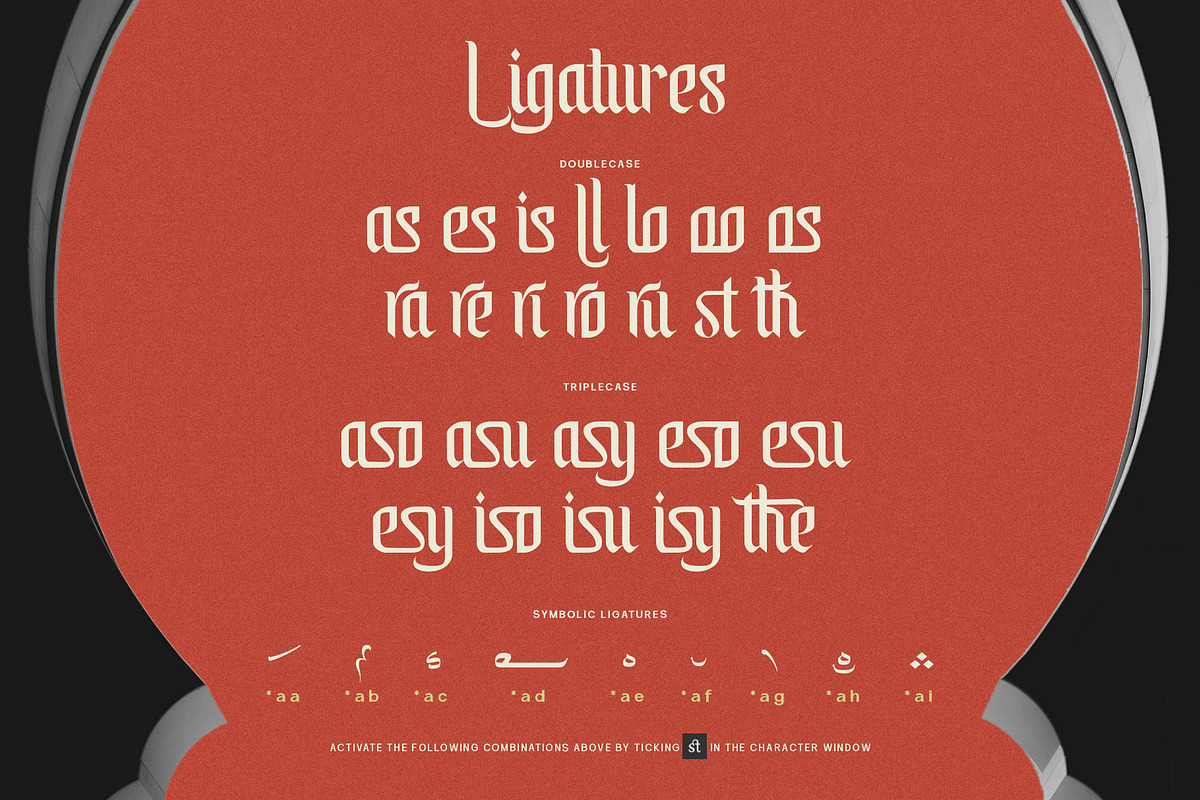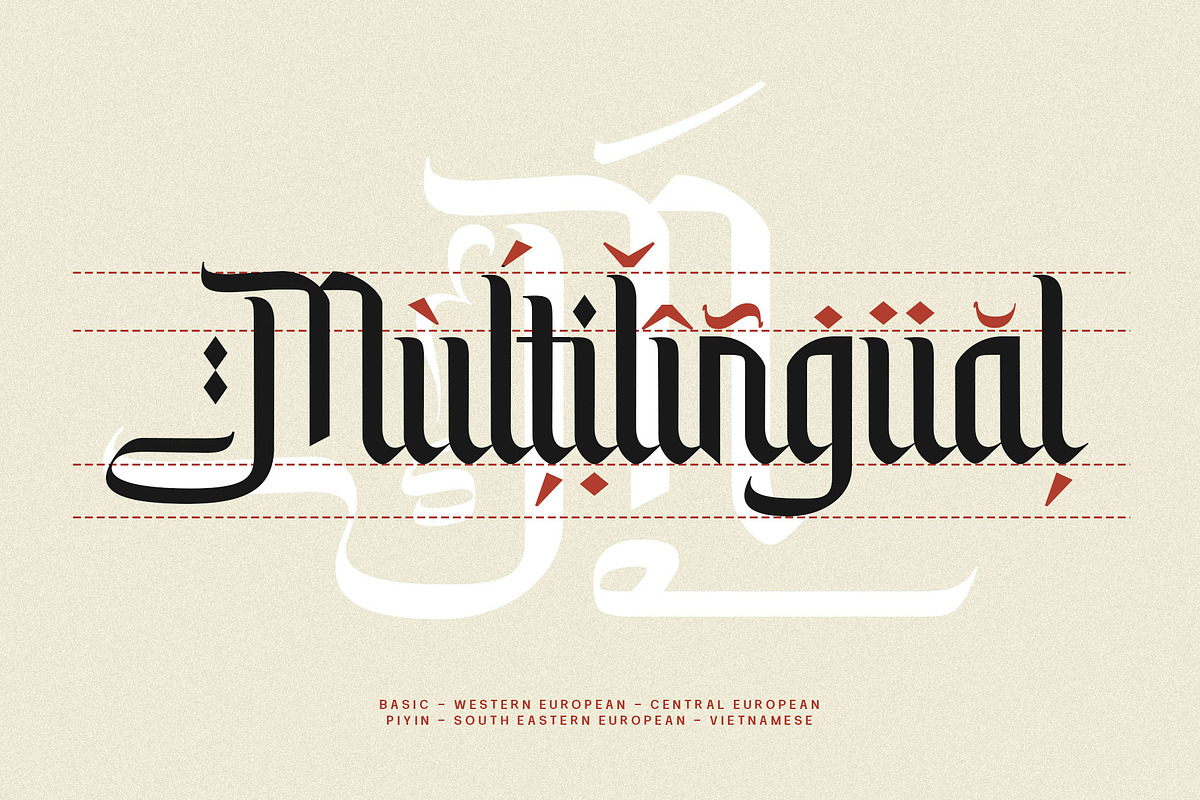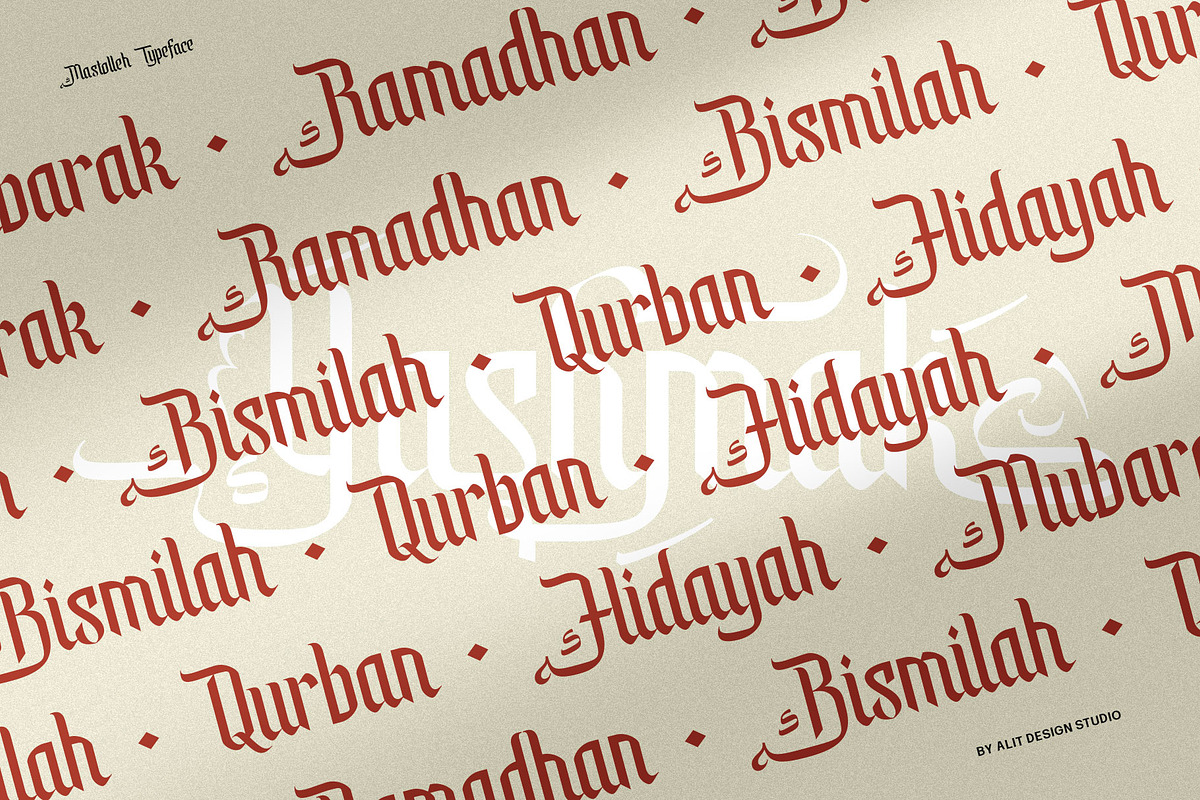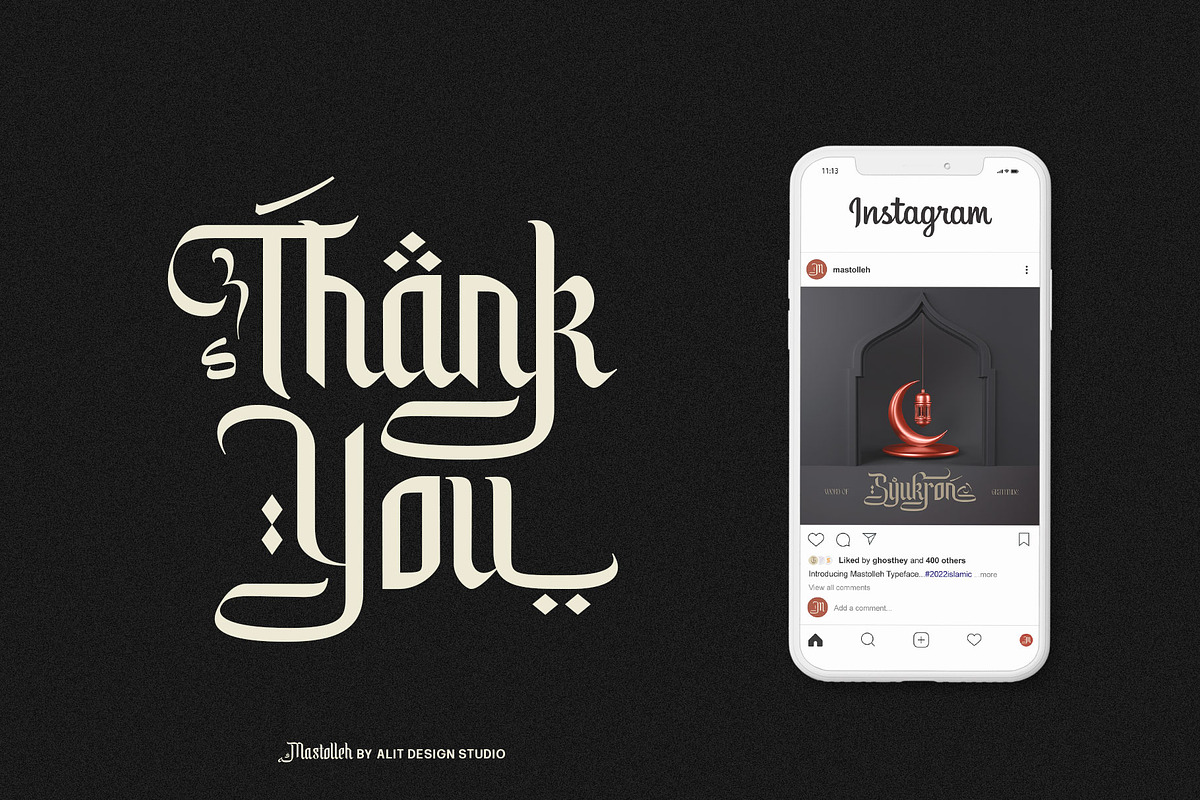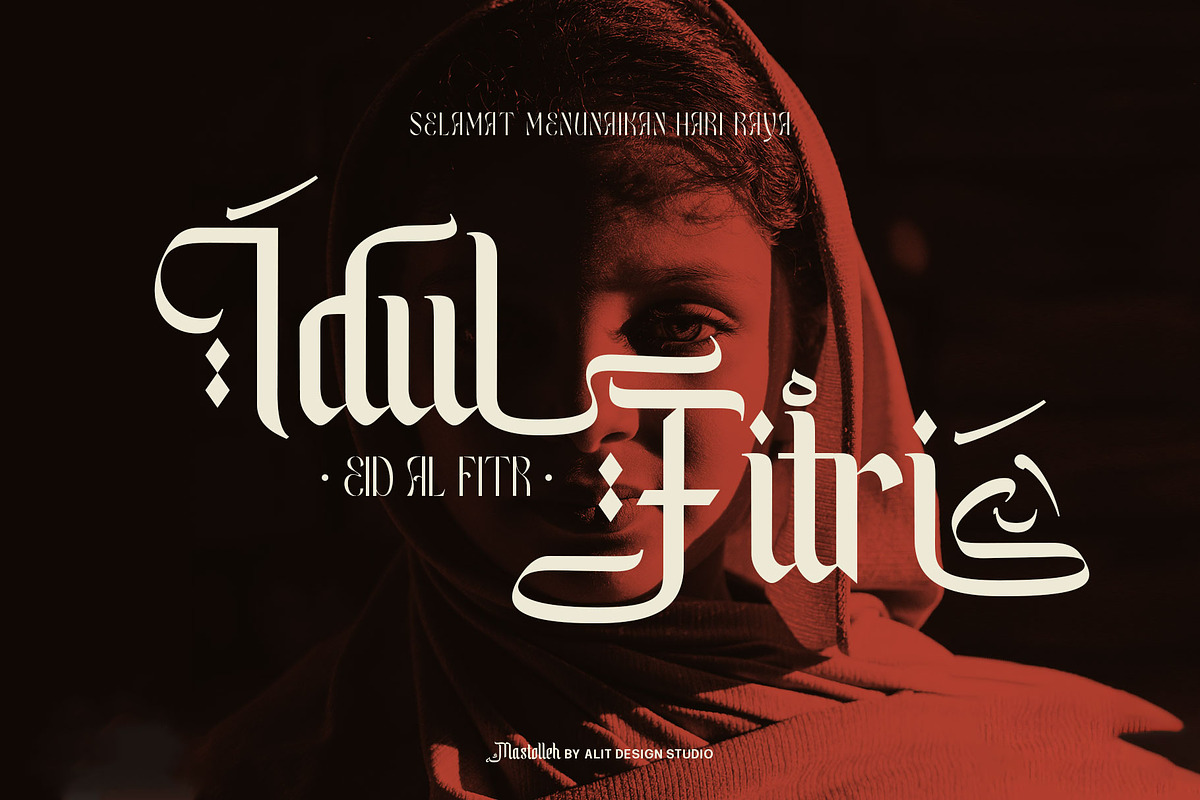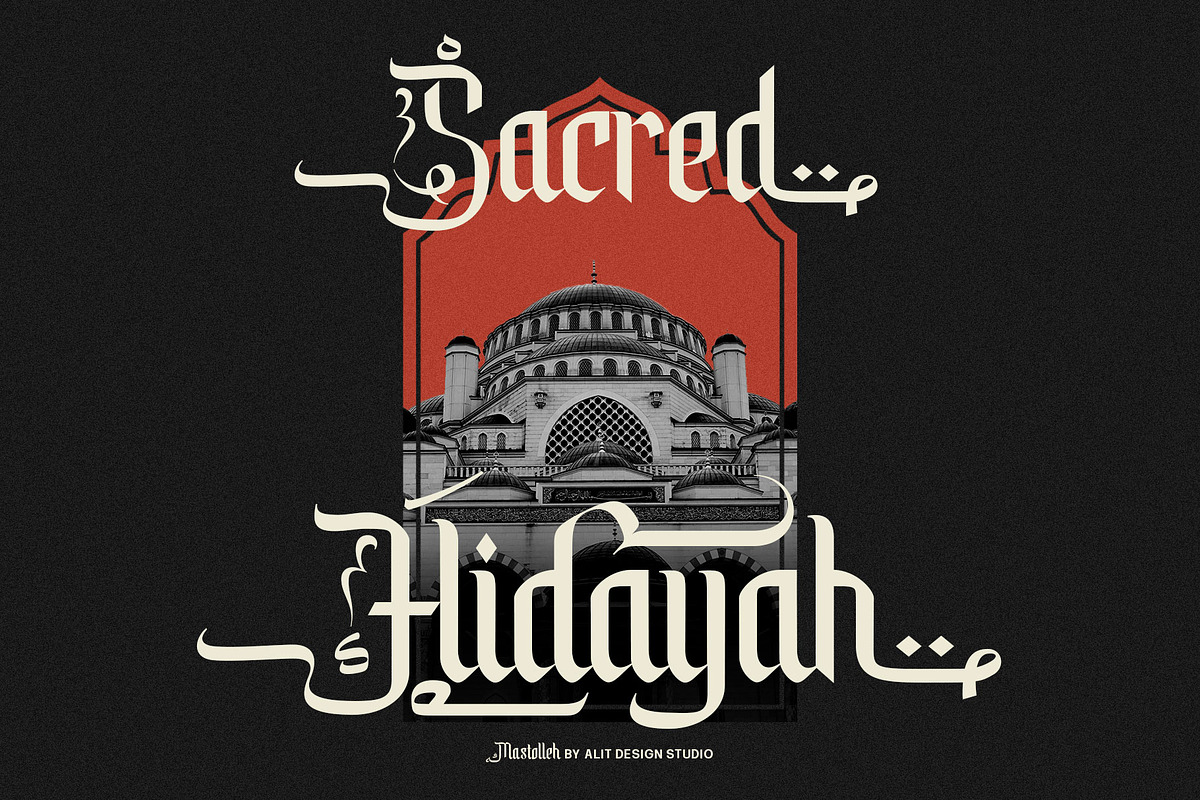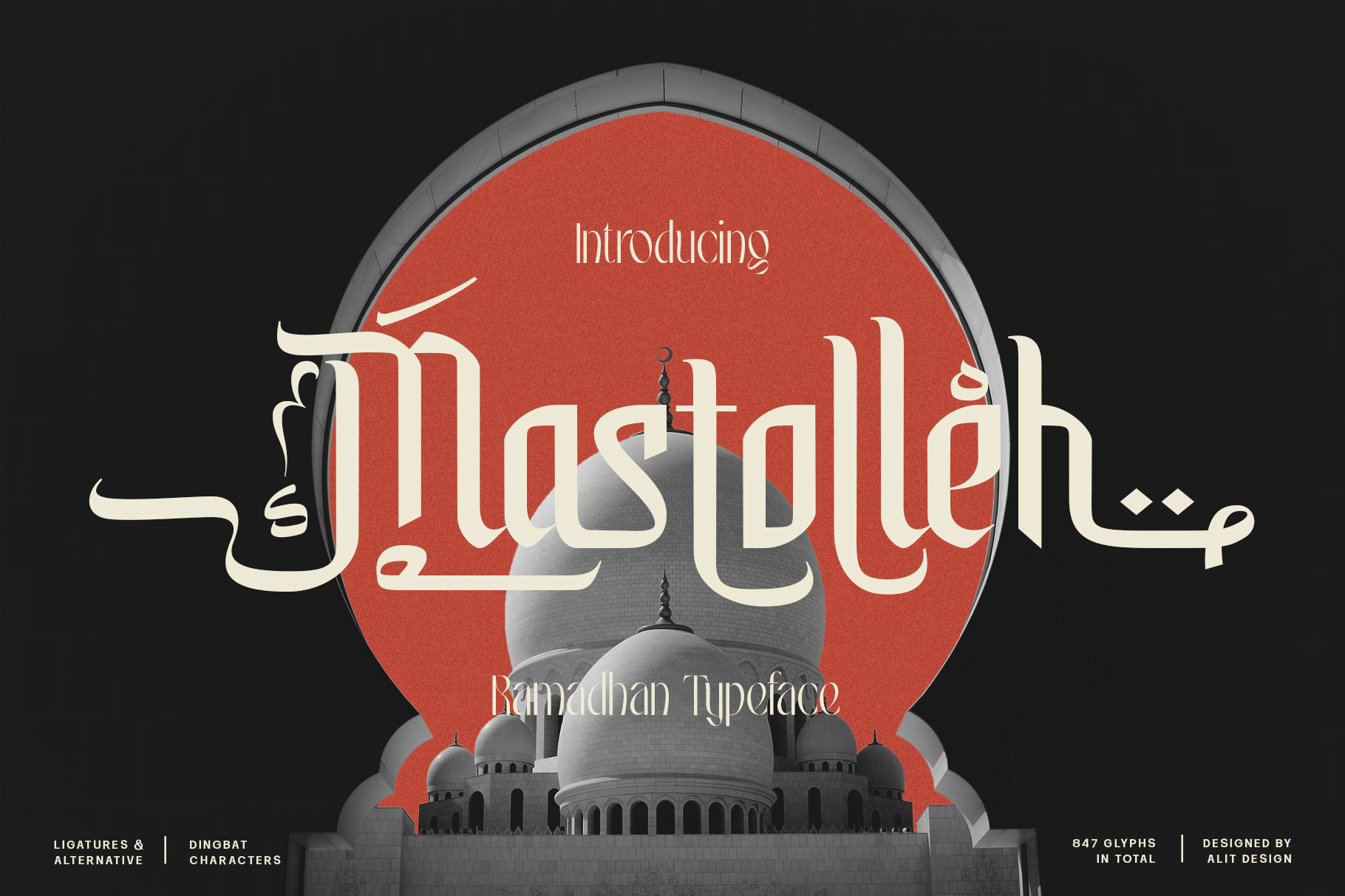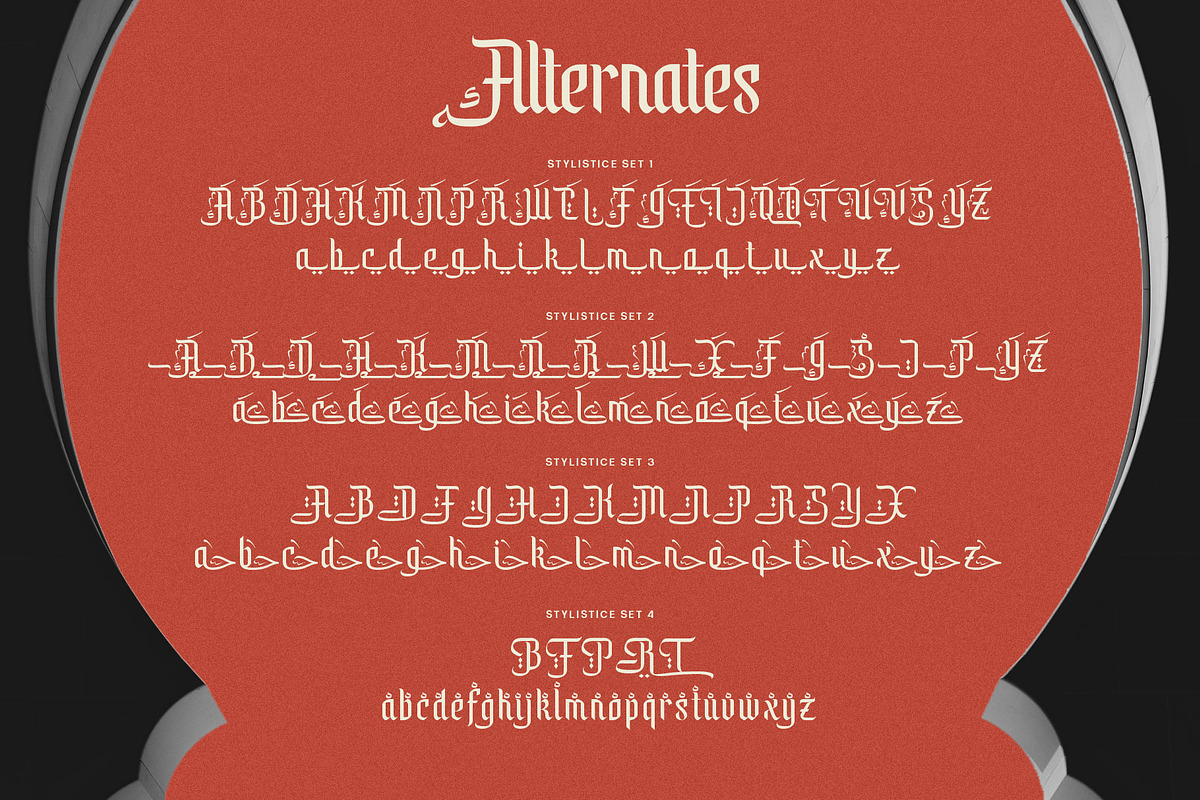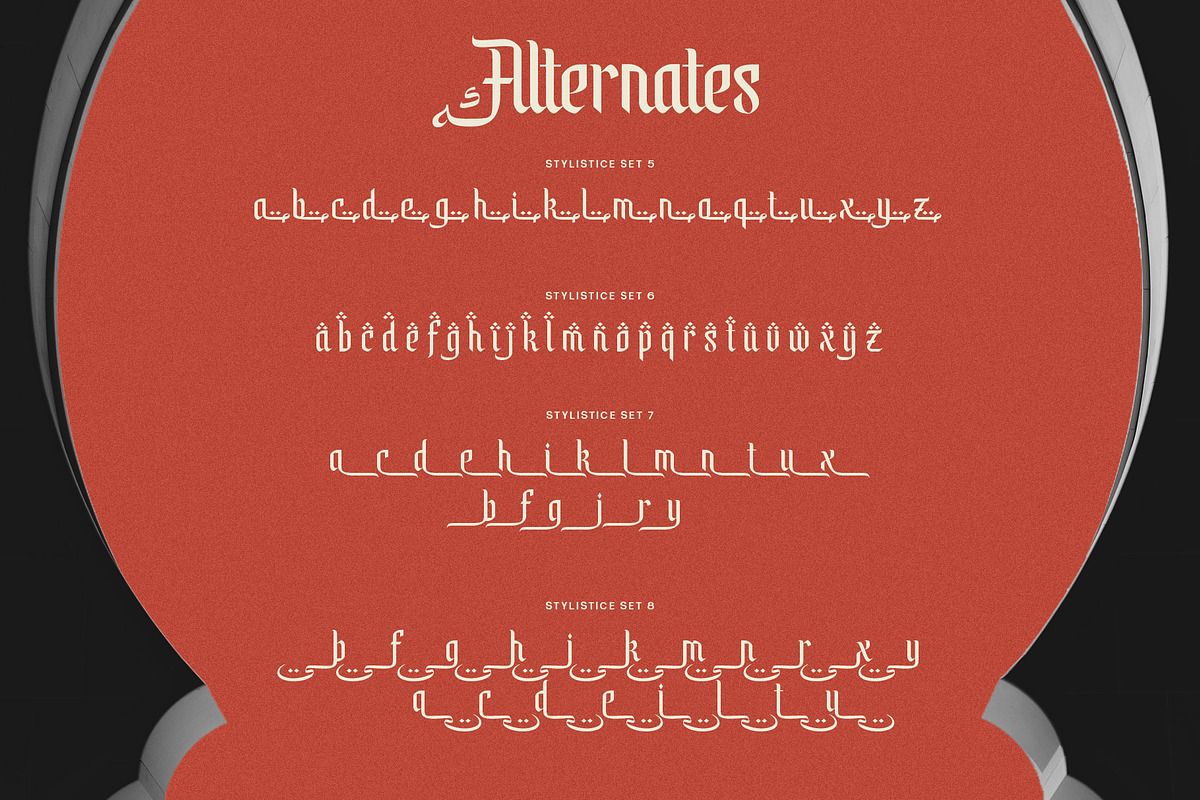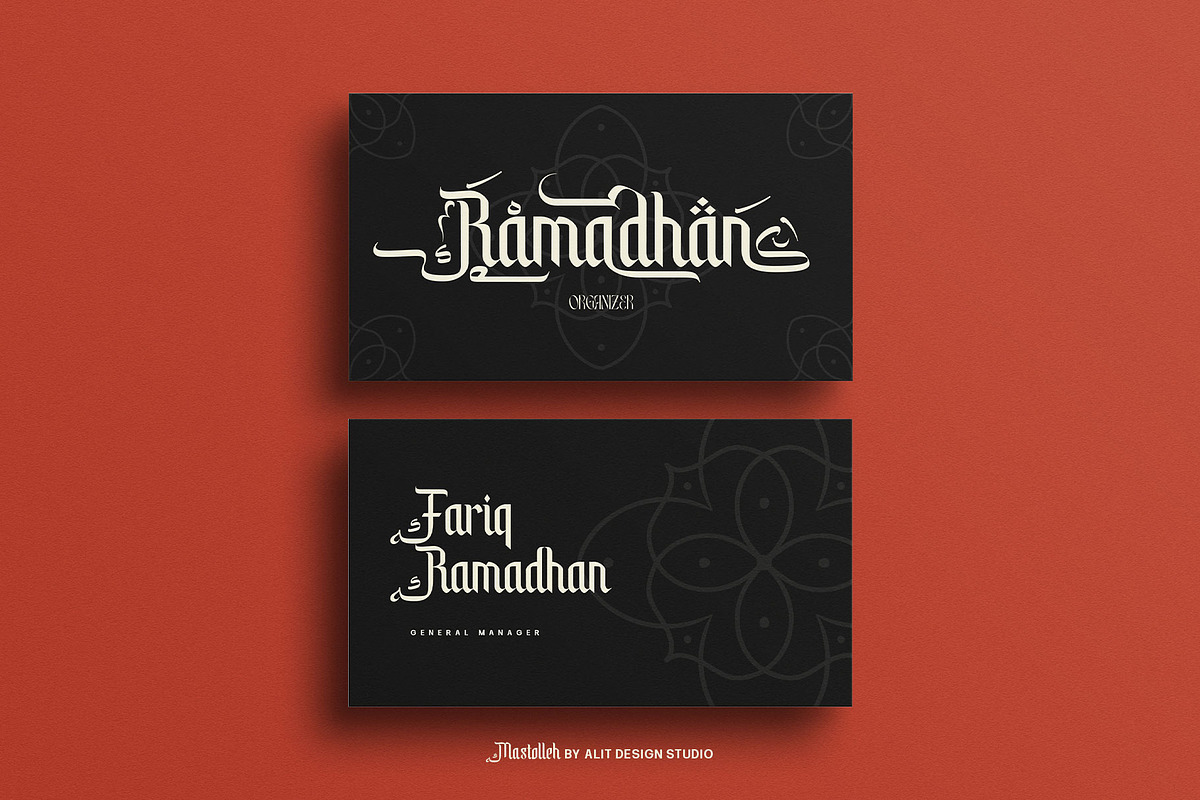
Mastolleh Ramadan Typeface
Presenting 🕌Mastolleh Ramadan Typeface🕌 by alitdesign.
"Mastolleh" is an Arabic font with a blackletter style and beautiful swashes. It is a highly versatile font that can be used for a variety of design projects. This font is designed specifically for users who require a font that can handle various writing systems and special characters. It comes with support for multiple languages.
Mastolleh font includes PUA (Private Use Area) Unicode, making it compatible with various software and applications that support OpenType features. It also features 847 glyphs, including uppercase and lowercase letters, numerals, and punctuation marks.
Additionally, there is a special version of Mastolleh font called "Mastolleh Dingbats," which includes 304 bonus dingbat characters related to Ramadan and Islamic themes. These bonus characters include crescent moons, lanterns, and mosque silhouettes.
Overall, Mastolleh and Mastolleh Dingbats are highly versatile fonts that can be used in a wide range of projects. Their unique style, multilingual support, PUA Unicode, extensive glyph set, and beautiful swashes make them a great choice for designers and users who need a font that is both beautiful and functional.
Language Support : Latin, Basic, Western European, Central European, South European,Vietnamese.